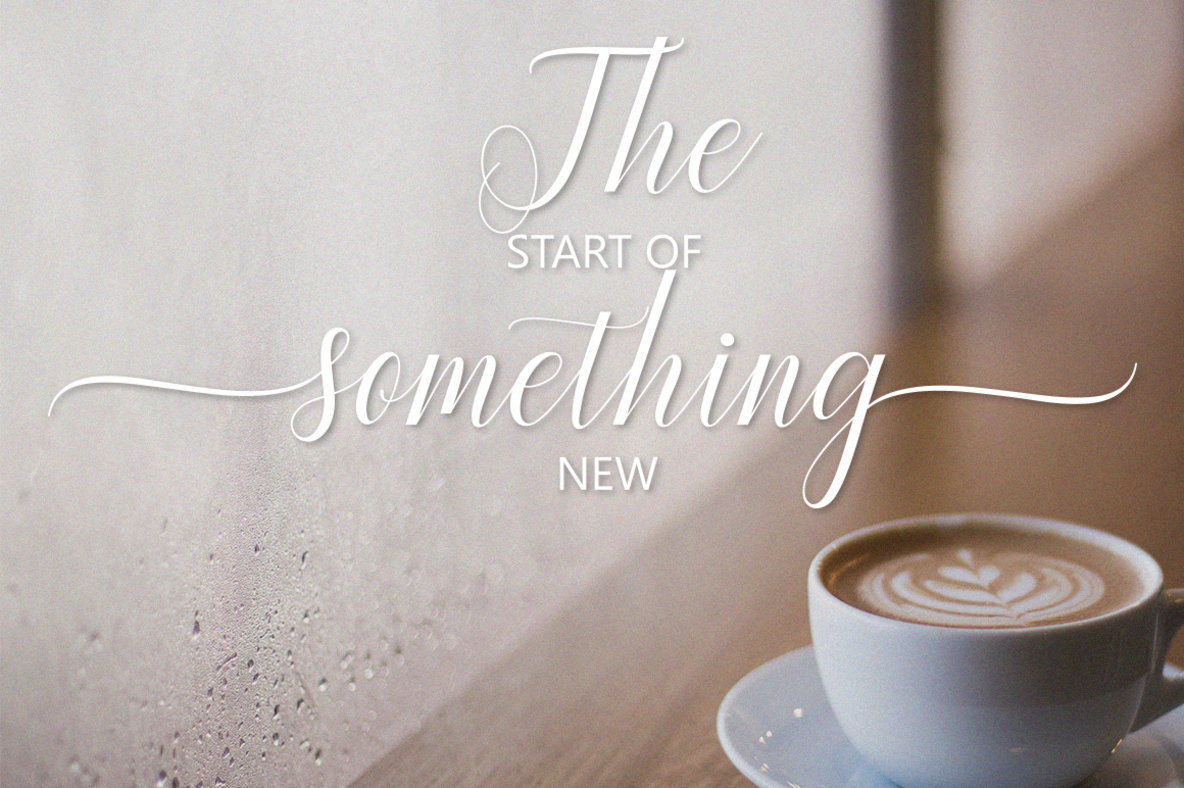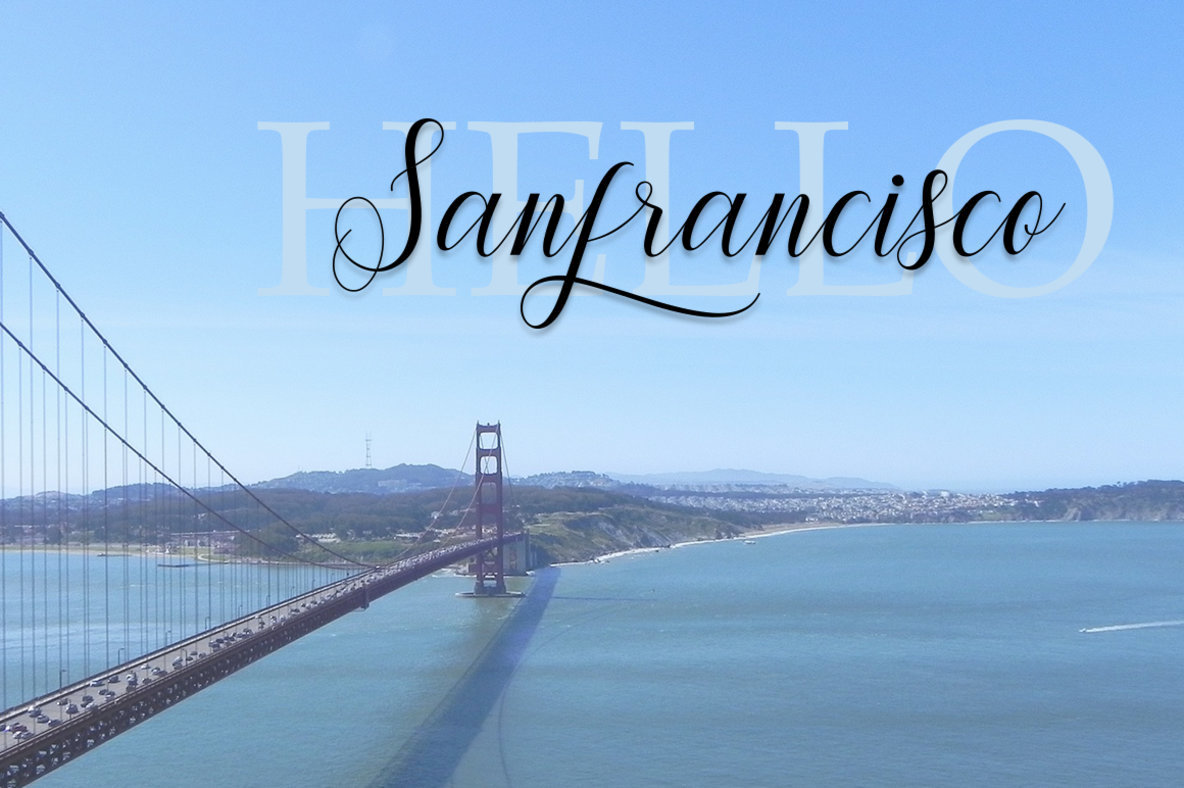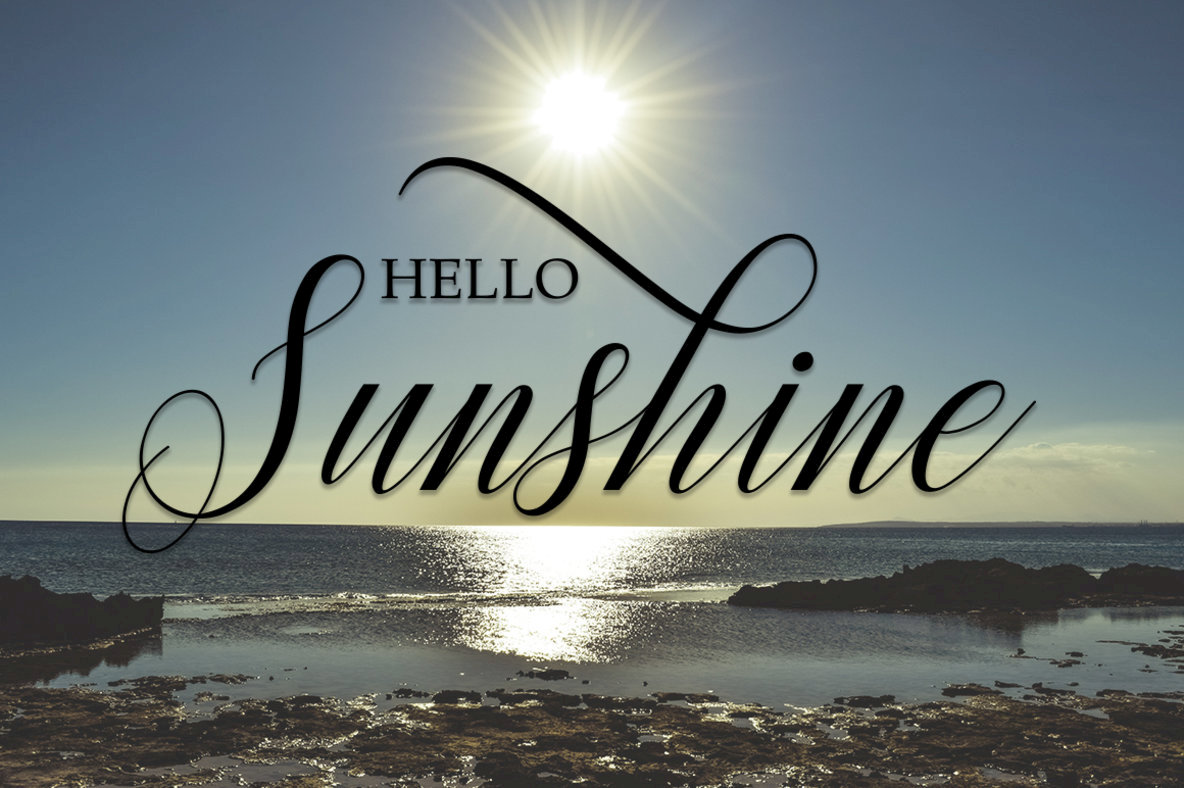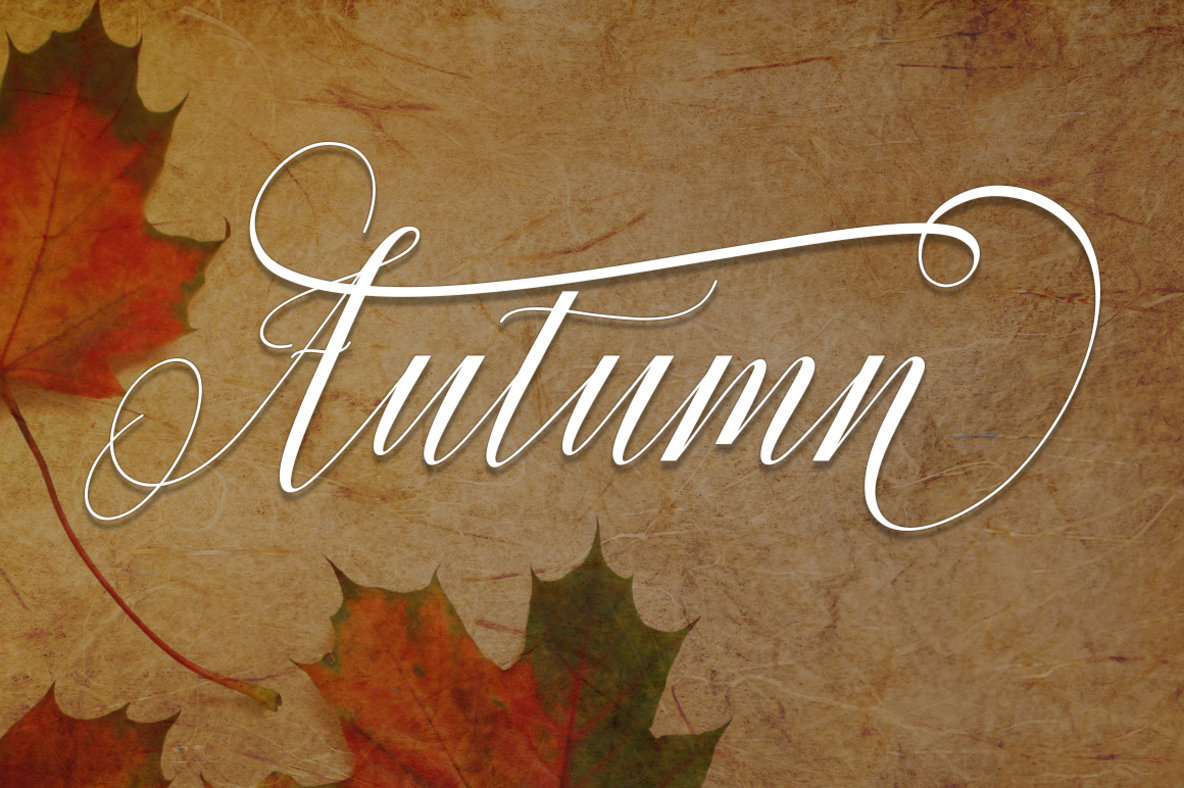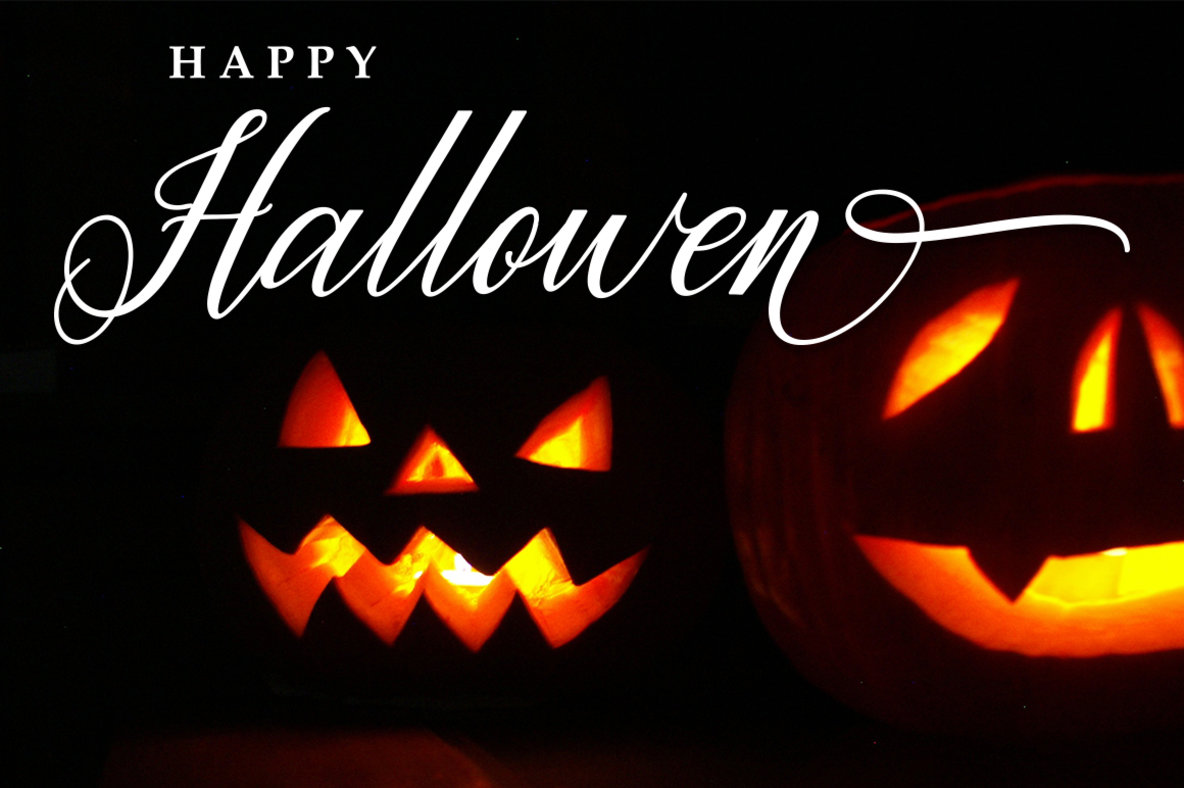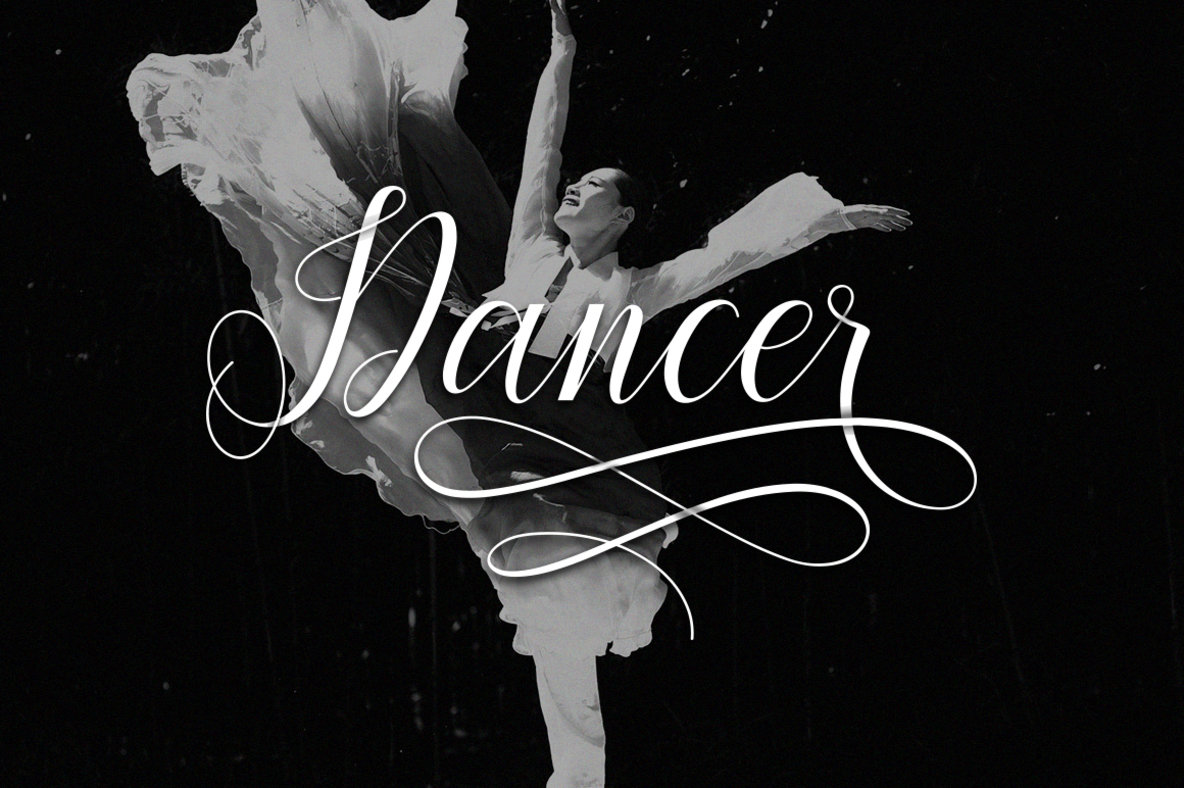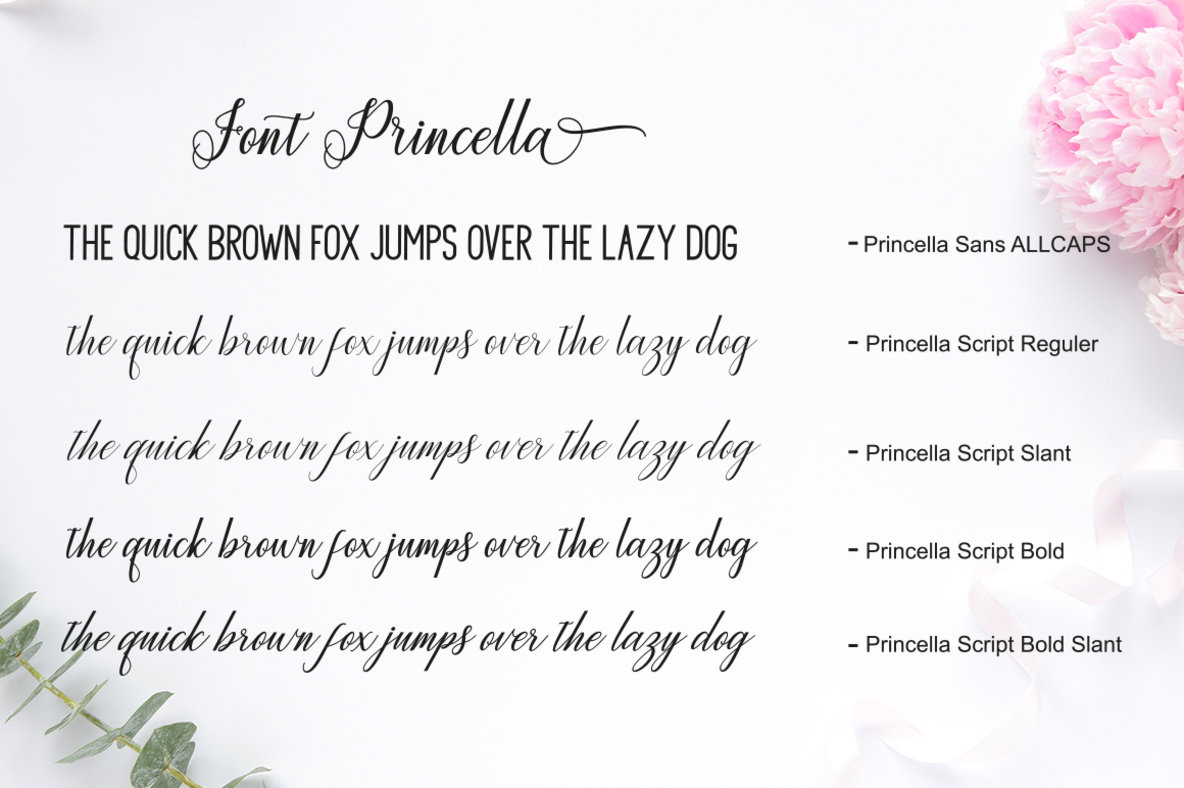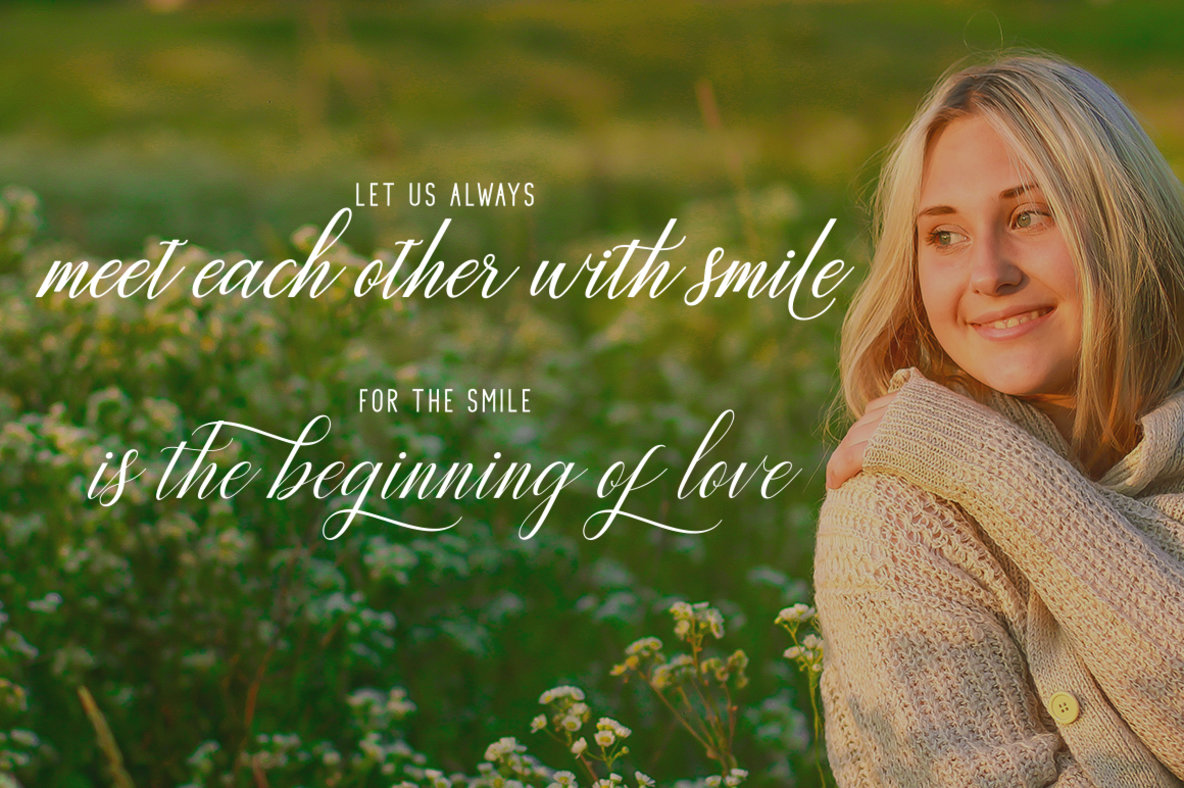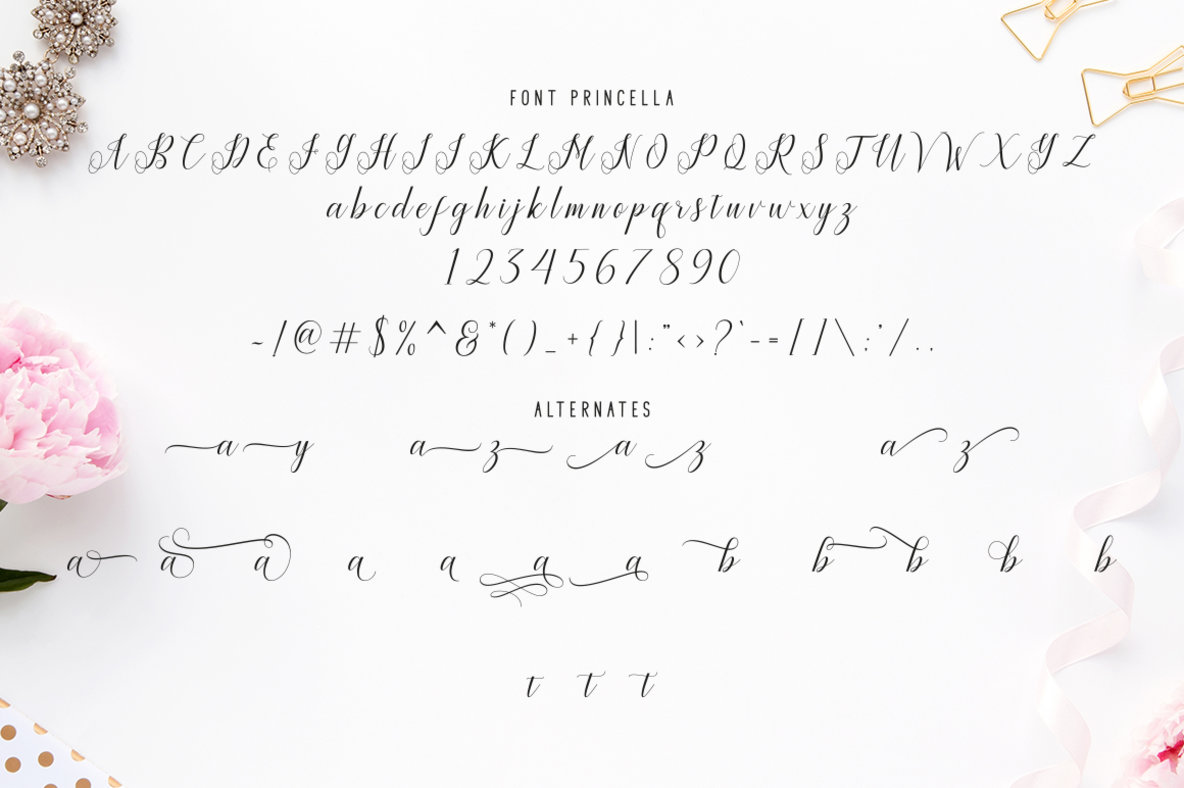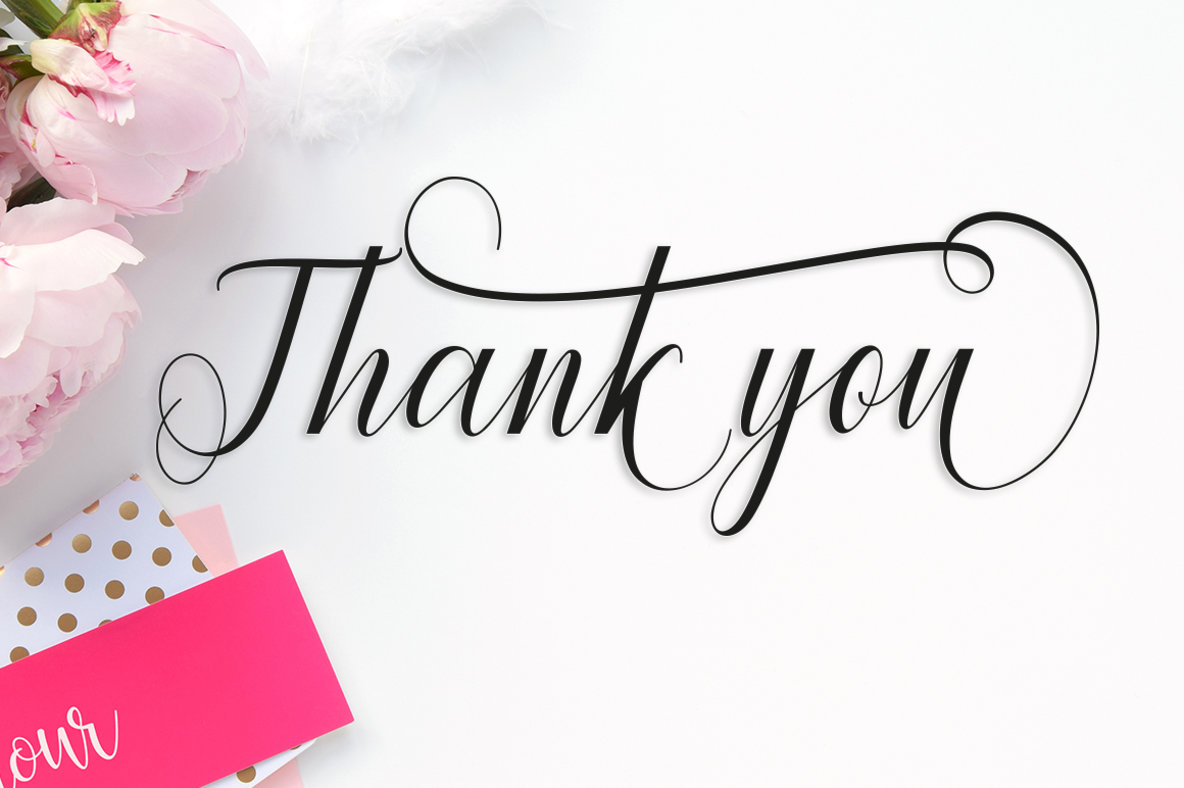
Princella Font
Immerse yourself in the elegance of Princella Script, a modern typeface known for its handcrafted calligraphy aesthetic. Perfect for invitations, greeting cards, branding materials, business cards, quotes, and posters, Princella Script offers a graceful touch to any design project. With an impressive 440 glyphs, Princella Script distinguishes itself with alternative characters available through several OpenType features, including Swash, Stylistic Sets, Stylistic Alternates, and Contextual Alternates. These can be effortlessly accessed using software such as Adobe Illustrator, Adobe InDesign, Adobe Photoshop, Corel Draw, and Microsoft Word. Additionally, this font features PUA Unicode for easy access to all alternate characters, making it ideal for designers seeking flexibility. The package includes six font styles, ensuring a complete toolkit for your designs: For those not using OpenType-capable software like Adobe Illustrator or CorelDraw, alternate glyphs are accessible via Font Book (Mac) or Character Map (Windows). With its versatile style and extensive features, Princella Script is a valuable asset for any creative director or graphic designer.Princella Script: A Fresh Handmade Calligraphy Style